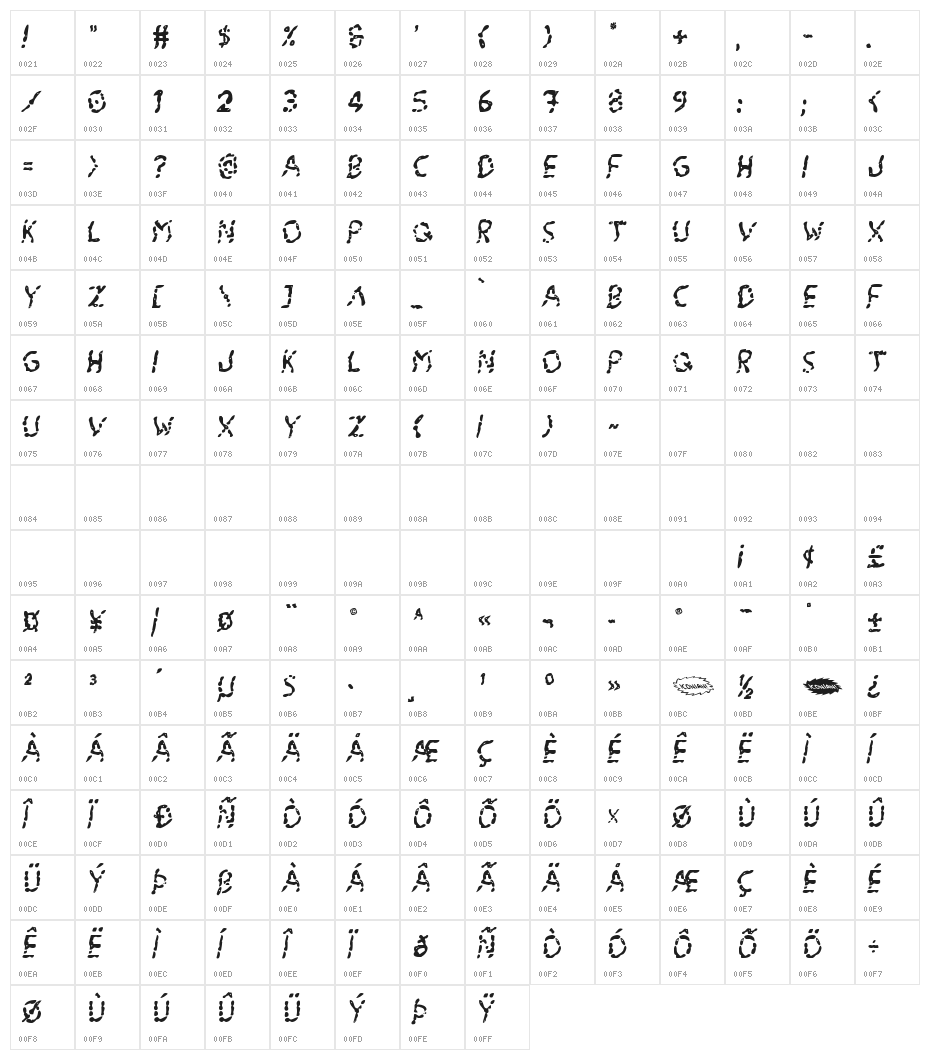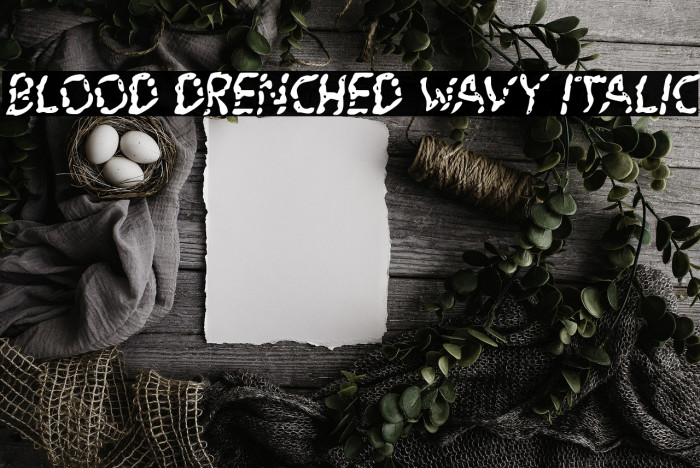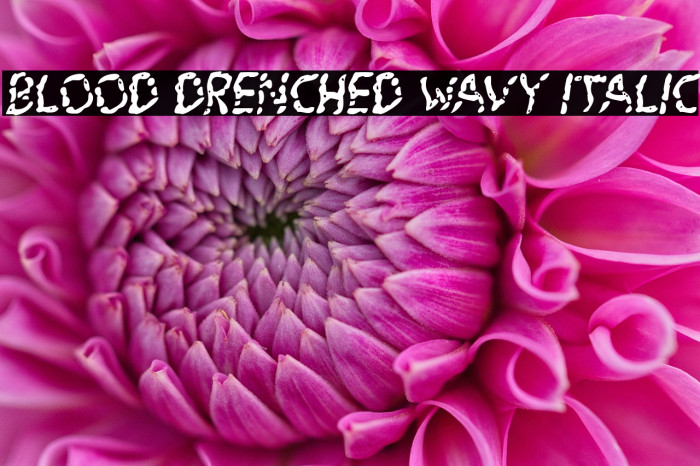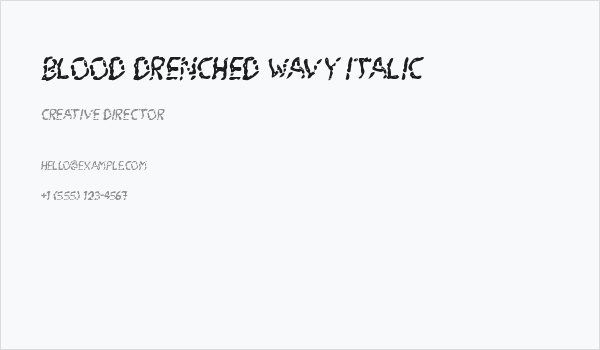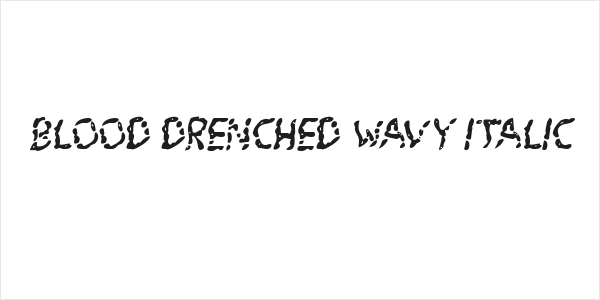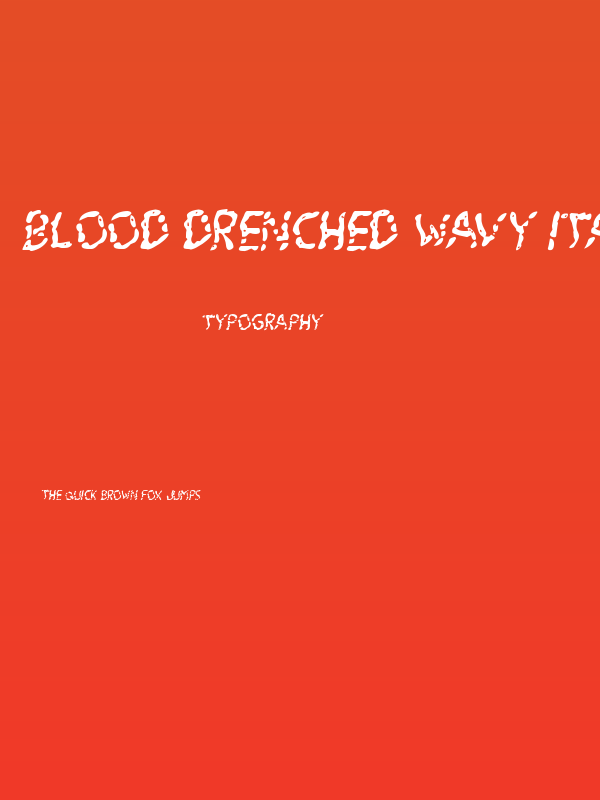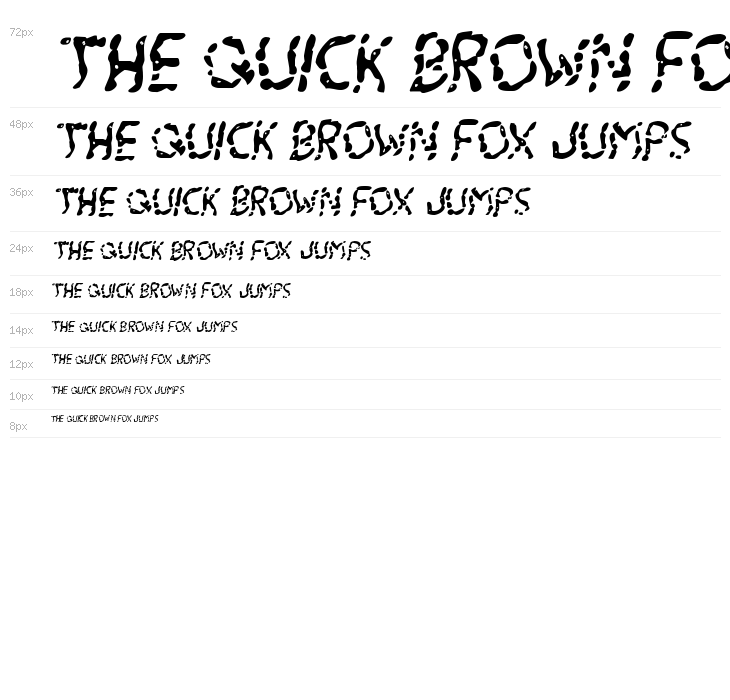
Blood Drenched Wavy Italic Font
Blood Drenched Wavy Italic Description
This font features a unique, wavy design that gives the impression of being drenched in liquid, creating a dramatic and eye-catching effect. The characters are bold and italicized, with irregular edges that contribute to a sense of movement and fluidity. The uppercase and lowercase letters maintain a consistent style, while the numbers and special characters are equally dynamic. This font's distinctive appearance makes it suitable for projects that require a bold statement or a touch of the macabre.
| Use Case | Headlines, Posters, Branding |
| Proposed Projects | Ideal for horror-themed posters, Halloween invitations, edgy branding, or any project needing a bold, dramatic typeface. |